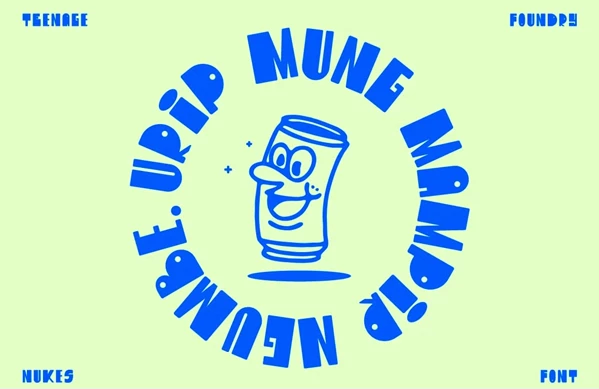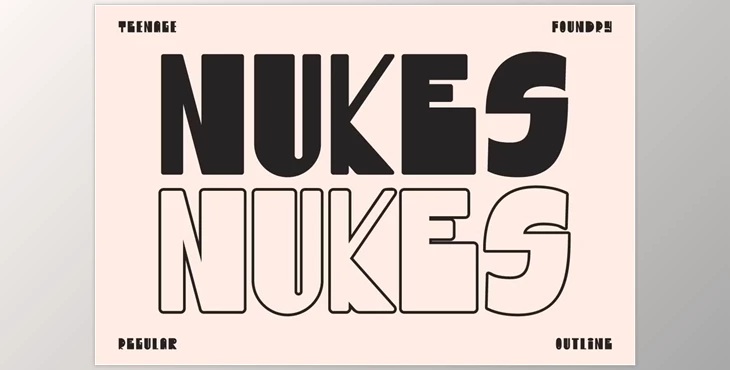
Nukes - The Boldest Display Style Font: Introducing TF Nukes, the ultimate display style font designed to grab your audience's attention and make your message impossible to ignore. With its bold and robust appearance, Nukes is perfect for headlines, titles, and any text that demands to be noticed.
But Nukes doesn't stop there; it comes with a bonus of 9 illustrations that seamlessly integrate with the font, elevating your designs to new heights of creativity and professionalism. These illustrations add an extra layer of appeal, giving your projects a cohesive and polished look.
Featuring uppercase, lowercase, numeral, and punctuation characters, as well as multilingual support and alternates, Nukes provides flexibility for all your design needs. Available in multiple file formats, including OTF, TTF, WOFF, AI, EPS, and SVG, Nukes ensures compatibility across various platforms and devices.
With multilingual support for over 60 languages, Nukes ensures that your message can reach audiences around the globe. From Afrikaans to Zulu, Nukes has you covered. Elevate your designs and make a bold statement with TF Nukes, the font that demands attention and takes your creativity to the next level.